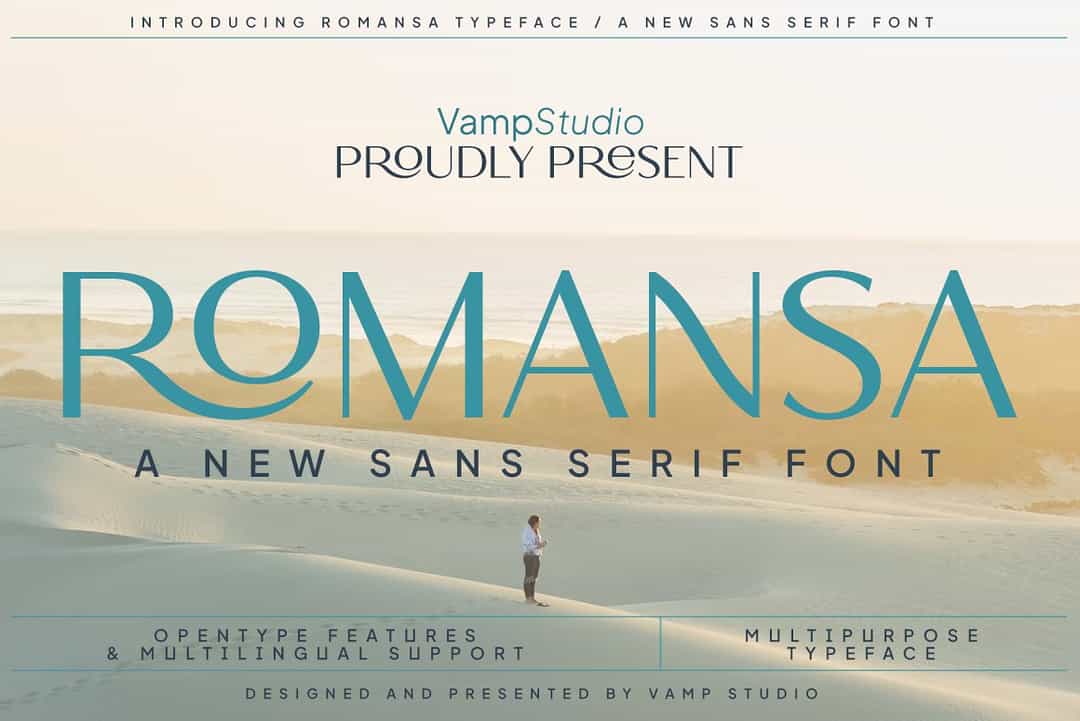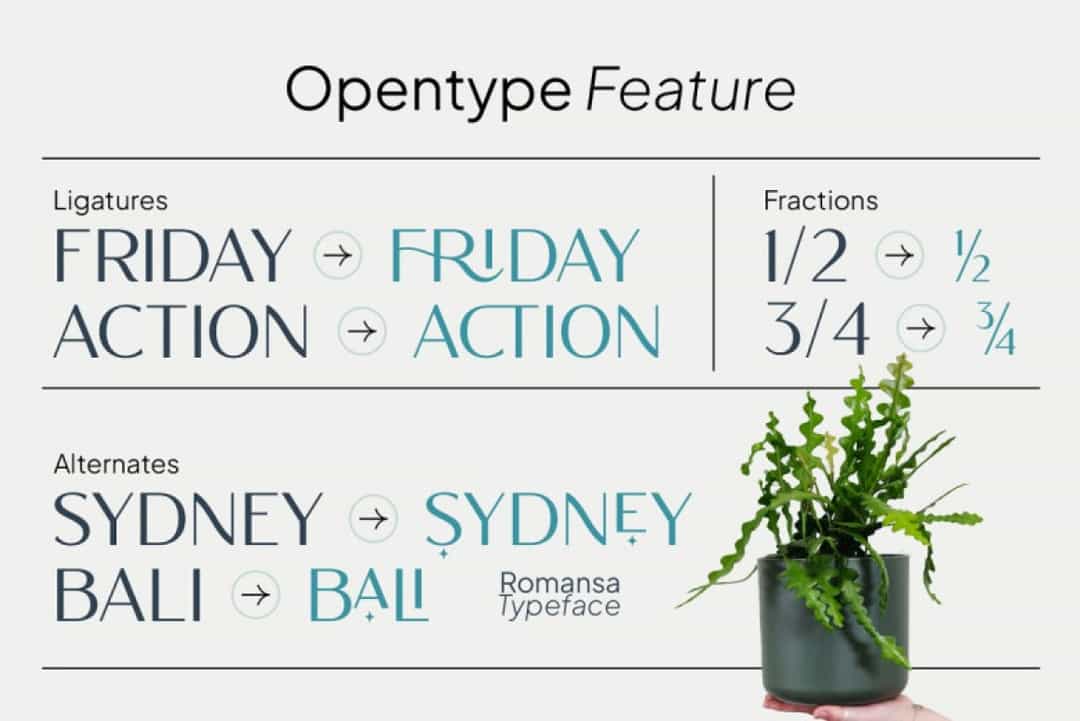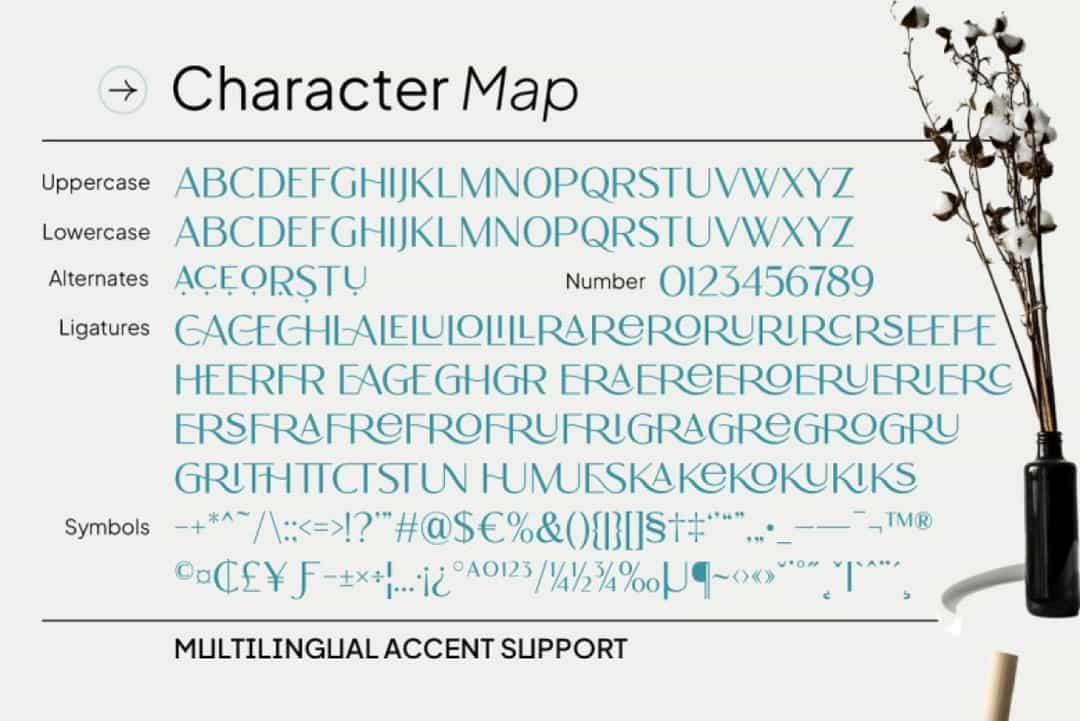
“Romansa” combines clean simplicity with sophisticated Sans Serif Typography! Enhance your designs using “Romansa,” an elegant sans serif font designed to bring modern sophistication to any design project. Enjoy the clean lines and balanced proportions that define “Romansa.” Its style is both simple and elegant – an ideal option for various design projects.